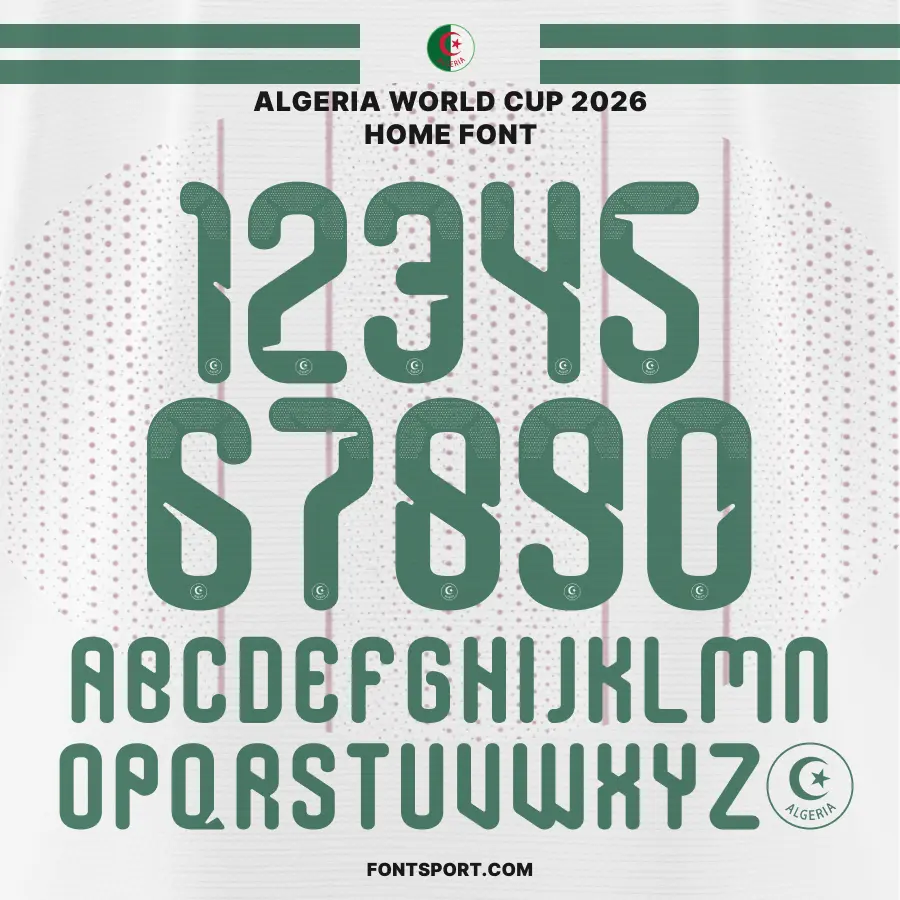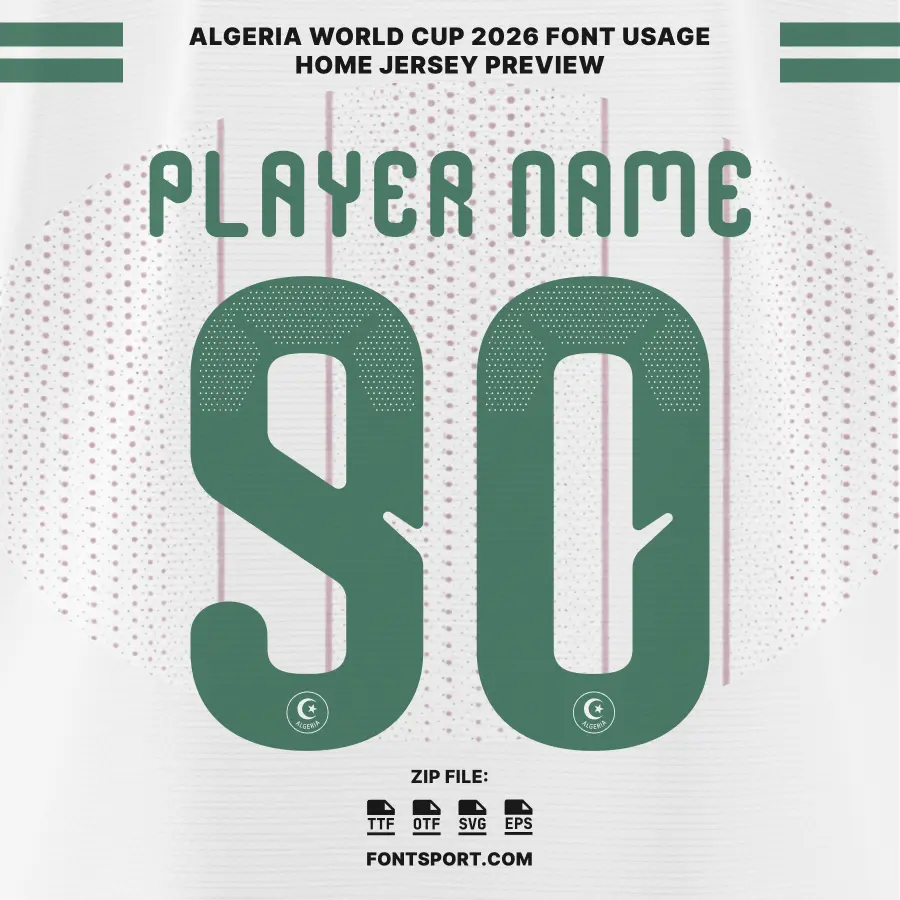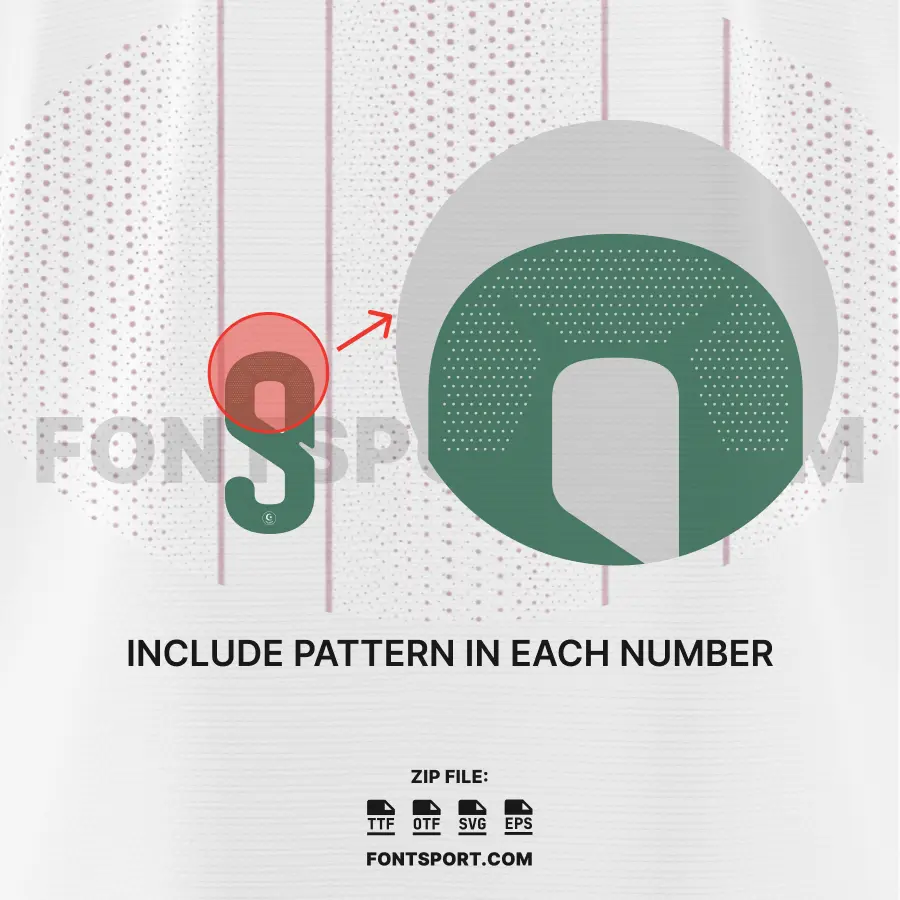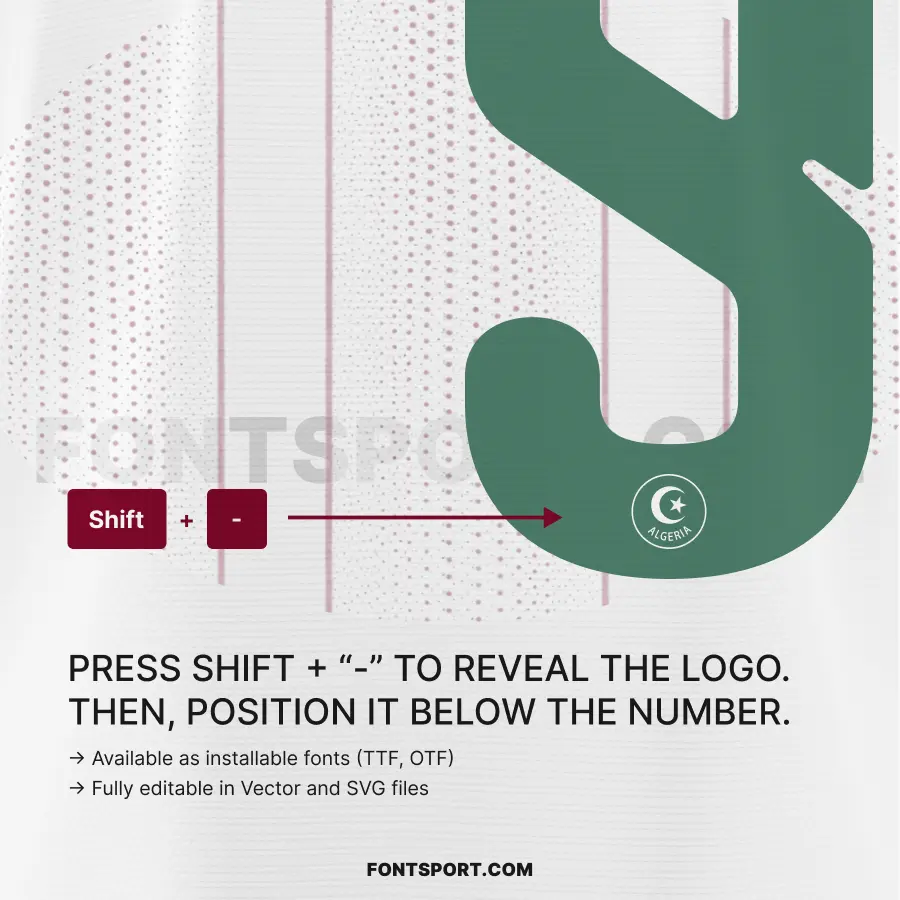
The Algeria World Cup Home 2026 Font Kit is a bold and modern football font inspired by the visual identity and competitive spirit of Algeria’s national team. This sport font is designed for designers, creators, and football fans who need strong typography for sports-related projects.
This font for jersey projects helps you create clear player names, numbers, and football graphics with high readability. The letterforms appear sharp, balanced, and confident. Therefore, the font works well across posters, jerseys, merchandise, packaging, banners, and digital media.
• Designed as a versatile font for jersey and sports graphics
• Clean and modern letterforms
• Inspired by international football design trends
Because of this balance, the font stays functional and visually strong.